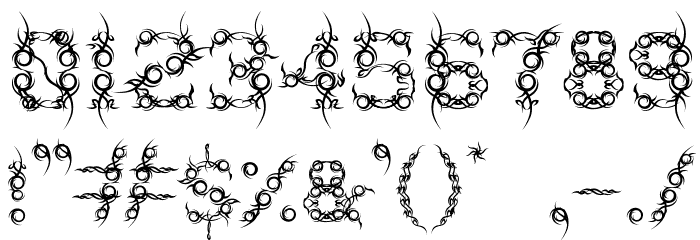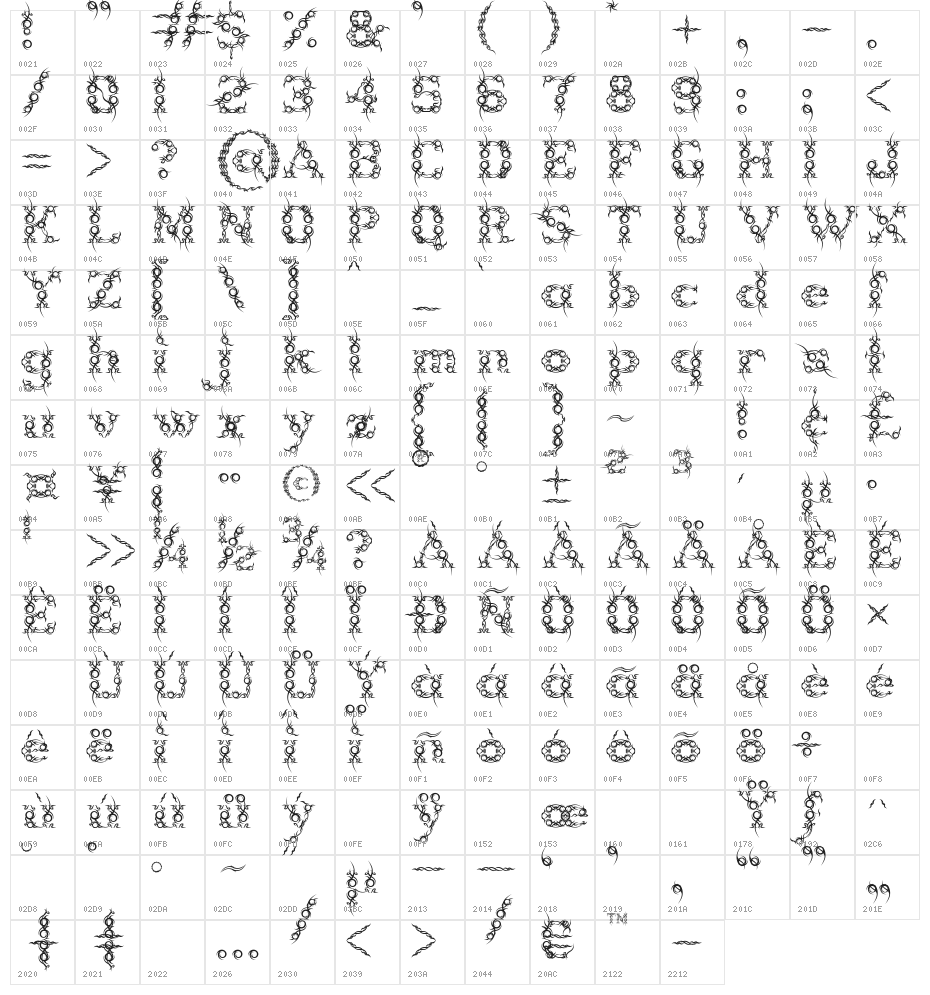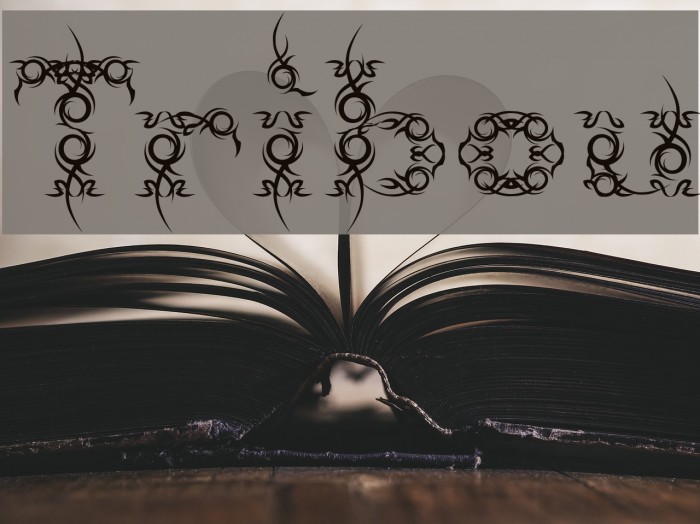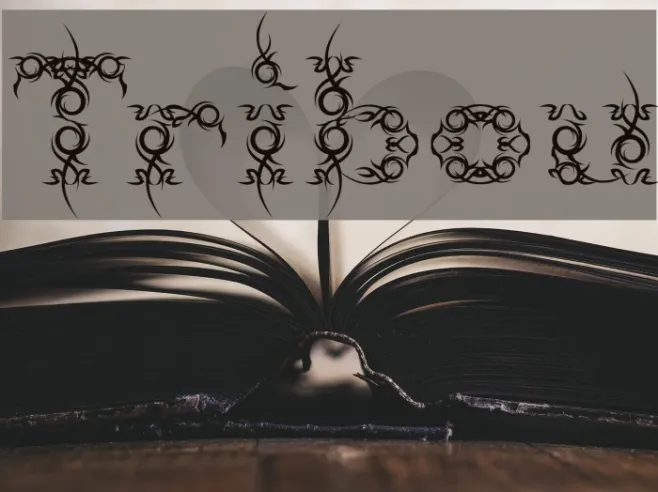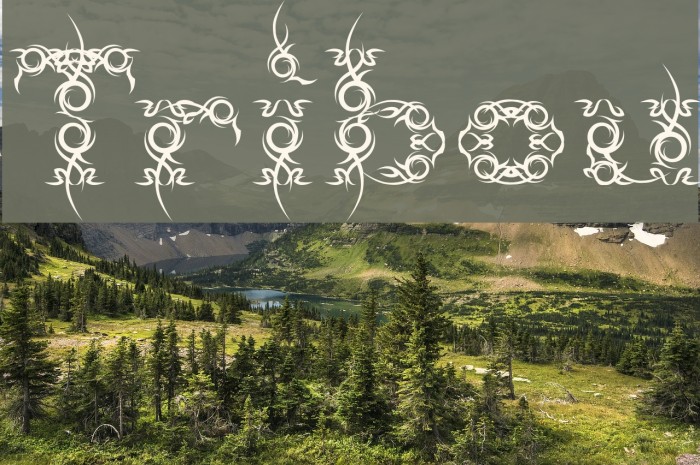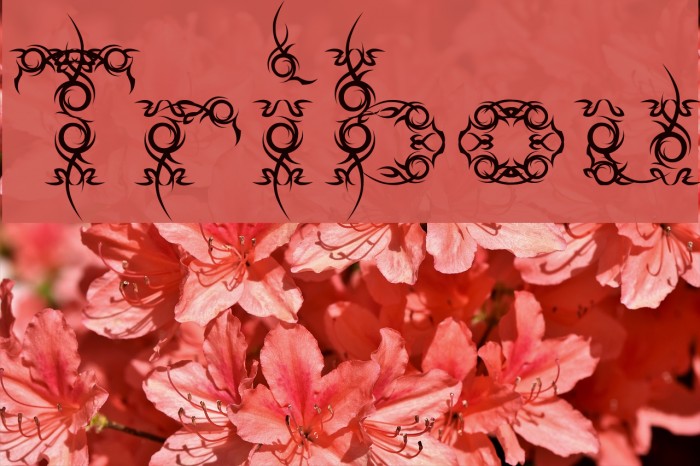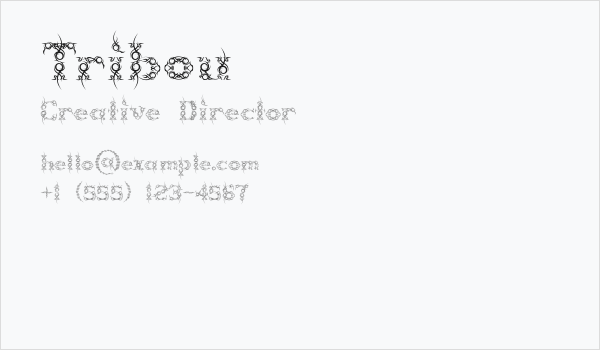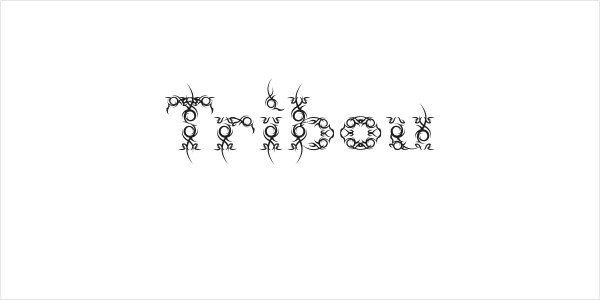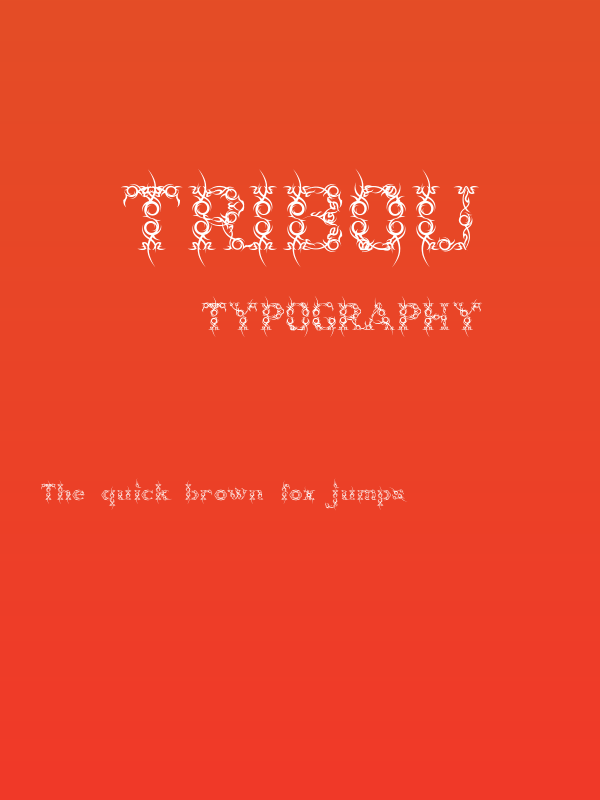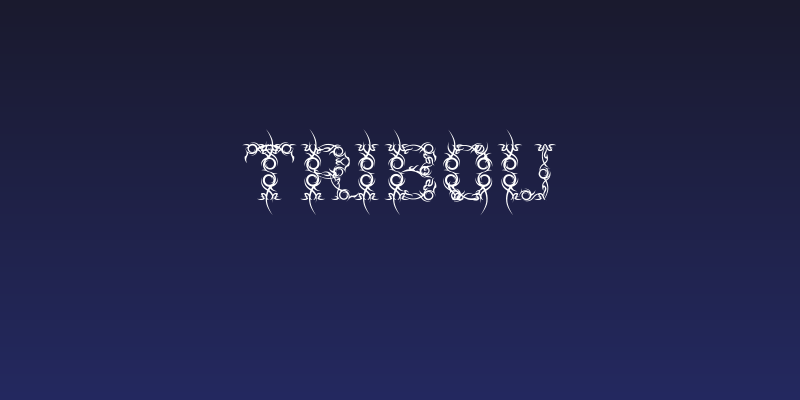
Tribou Font
Tribou Description
This font features an intricate and decorative design, characterized by swirling, thorn-like embellishments that intertwine with each letter and number. The ornate style gives it a unique, almost gothic appearance, making it stand out with its complex patterns. Each character is crafted with a high level of detail, creating a sense of movement and fluidity. The overall look is both artistic and dramatic, suitable for projects that require a bold and eye-catching typeface.
| Proposed Projects | Ideal for album covers, fantasy-themed posters, gothic invitations, or any design needing a dramatic flair. |